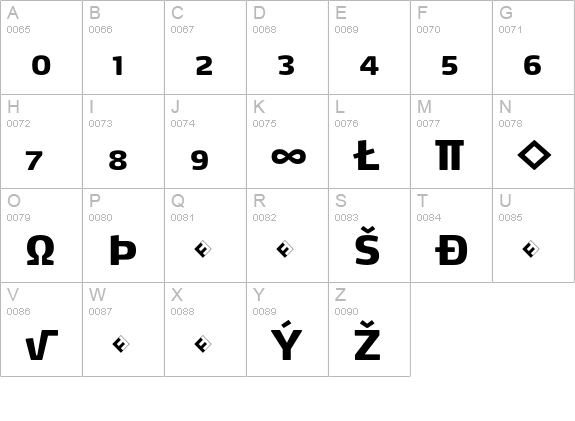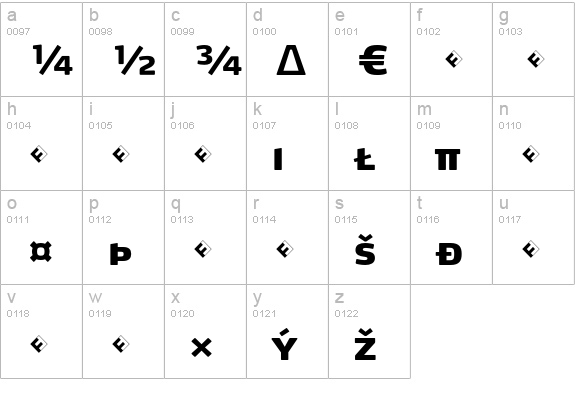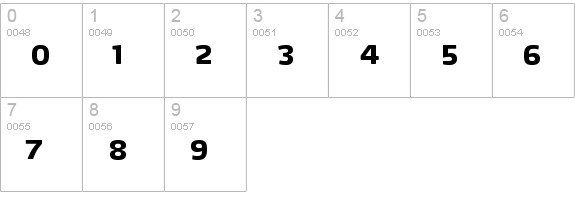
Max-BlackSCExpert Font Details
Max-BlackSCExpert font is a bold and stylish typeface that exudes confidence and sophistication. With its sharp edges and sleek design, this font is perfect for making a statement in any project. The strong, modern look of Max-BlackSCExpert font makes it ideal for headlines, logos, and branding materials that demand attention. What's even better is that Max-BlackSCExpert font is available for free download at FontsMarket.com. This means you can easily access and use this striking font in your designs without any cost. Whether you're working on a personal project or a professional assignment, Max-BlackSCExpert font is a versatile and eye-catching choice that will elevate your work to the next level.